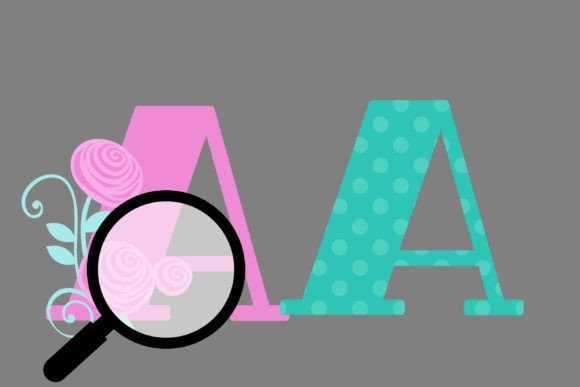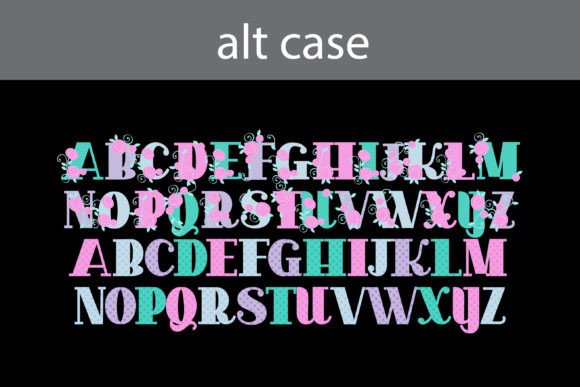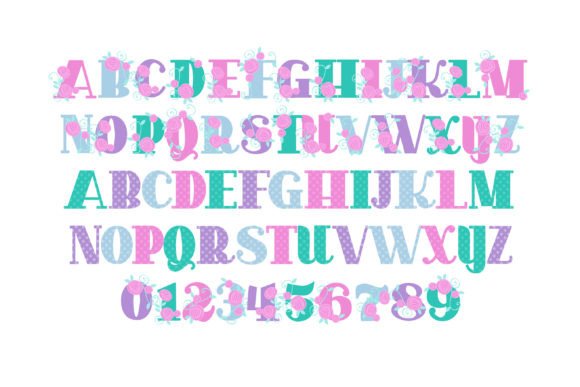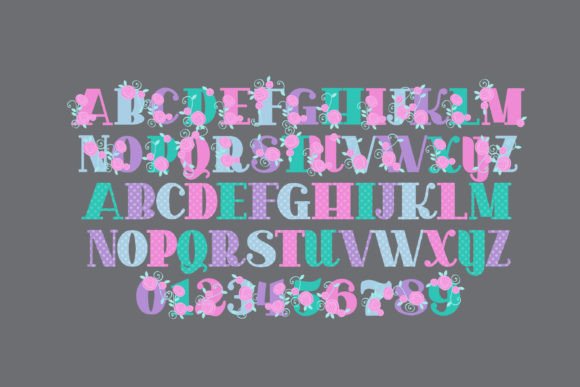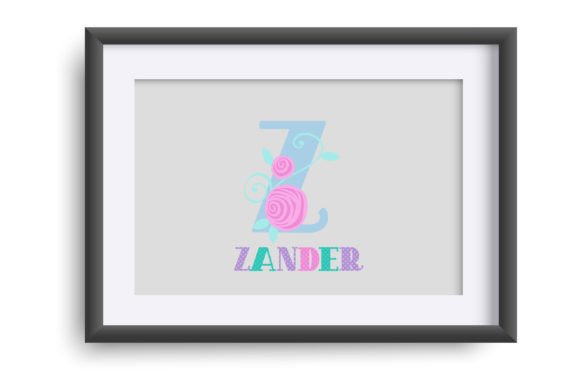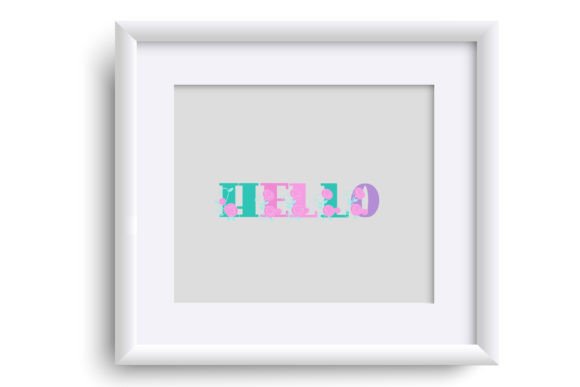
Introducing Floret Spring Font: Elevate Your Designs with Beautiful Florals
Are you looking for a unique and creative way to add a touch of personality to your designs? Look no further than the Floret Spring Font, a stunning full-color font featuring beautiful florals on a serif font. This gorgeous font is perfect for designers and crafters who want to take their projects to the next level.
What is Floret Spring Font?
Floret Spring Font is a one-of-a-kind font that combines the elegance of a serif font with the beauty of colorful florals. The font features a range of colors and styles, allowing you to create anything from simple text logos to complex illustrations. With its unique and eye-catching design, Floret Spring Font is sure to make your projects stand out.
Key Features of Floret Spring Font
• Full-color font: Floret Spring Font is a full-color font, featuring beautiful florals in a range of colors.
• Serif font: The font is built on a classic serif font, providing a elegant and sophisticated base for the colorful florals.
• Alt case: The font includes an alternate case with additional colors, which can be accessed through your system or Silhouette’s glyph map.
Benefits of Using Floret Spring Font
Floret Spring Font offers a range of benefits for designers and crafters, including:
• Unique and creative designs: With its colorful florals and elegant serif font, Floret Spring Font allows you to create unique and creative designs.
• Versatile: Floret Spring Font can be used in a variety of projects, from simple text logos to complex illustrations.
• Time-saving: With its range of colors and styles, Floret Spring Font can save you time and effort in your design projects.
Tips for Using Floret Spring Font
Here are a few tips for getting the most out of Floret Spring Font:
• Experiment with different colors and styles: Don’t be afraid to try out different colors and styles to find the perfect combination for your project.
• Use it for special projects: Floret Spring Font is perfect for special projects, such as wedding invitations, birthday cards, and other celebrations.
• Combine it with other fonts: Try combining Floret Spring Font with other fonts to create a unique and eye-catching design.
Floret Spring Font is a stunning full-color font that offers a unique and creative way to add personality to your designs. With its beautiful florals, elegant serif font, and range of colors and styles, this font is perfect for designers and crafters who want to take their projects to the next level. Whether you’re creating simple text logos or complex illustrations, Floret Spring Font is the perfect choice.